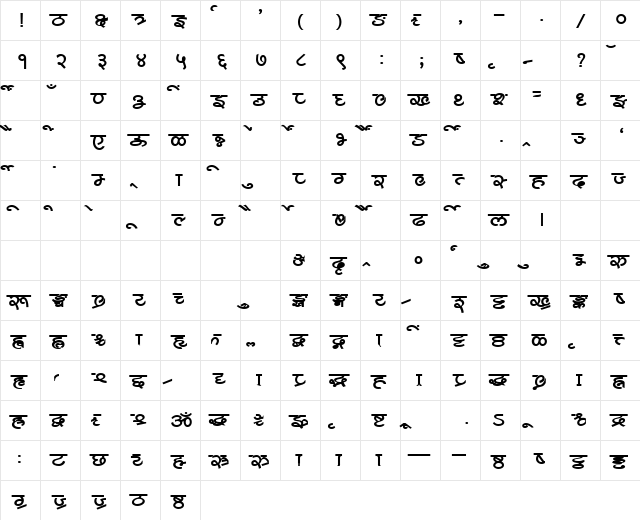
AkrutiDevMaya Bold
Design Context for AkrutiDevMaya Typeface
AkrutiDevMaya takes a measured approach to typography — its balanced proportions and neutral character make it a reliable workhorse for both digital and print work. The heavy weight commands attention and anchors typographic hierarchies.